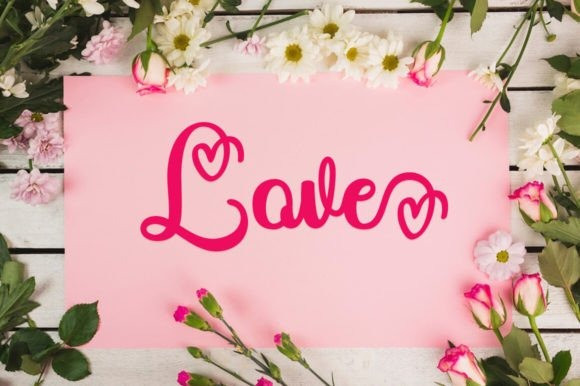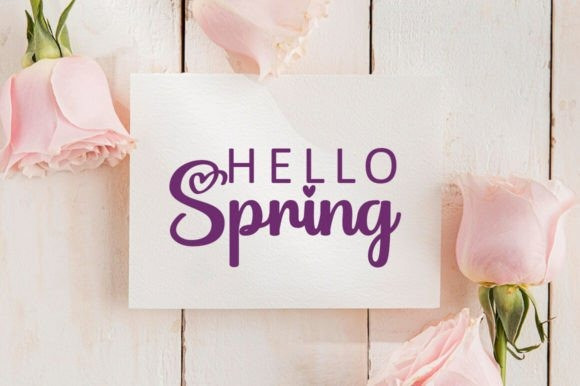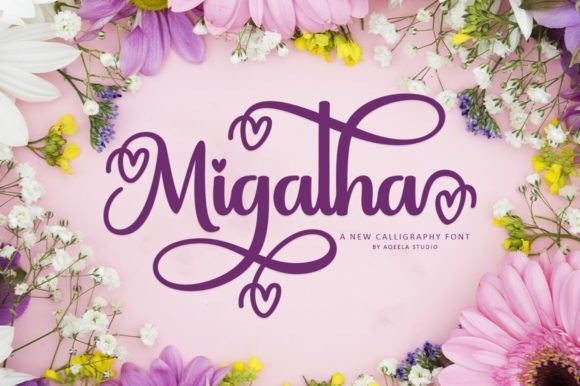
Migatha Font
Migatha Font is a sophisticated calligraphy-inspired script typeface with a modern aesthetic and flawless shape. This typeface was created to highlight the beauty of your work since it is balanced, not too thin or thick, and has a wide range of weights. Since Migatha is PUA encoded, you can easily access all of the glyphs and swashes!